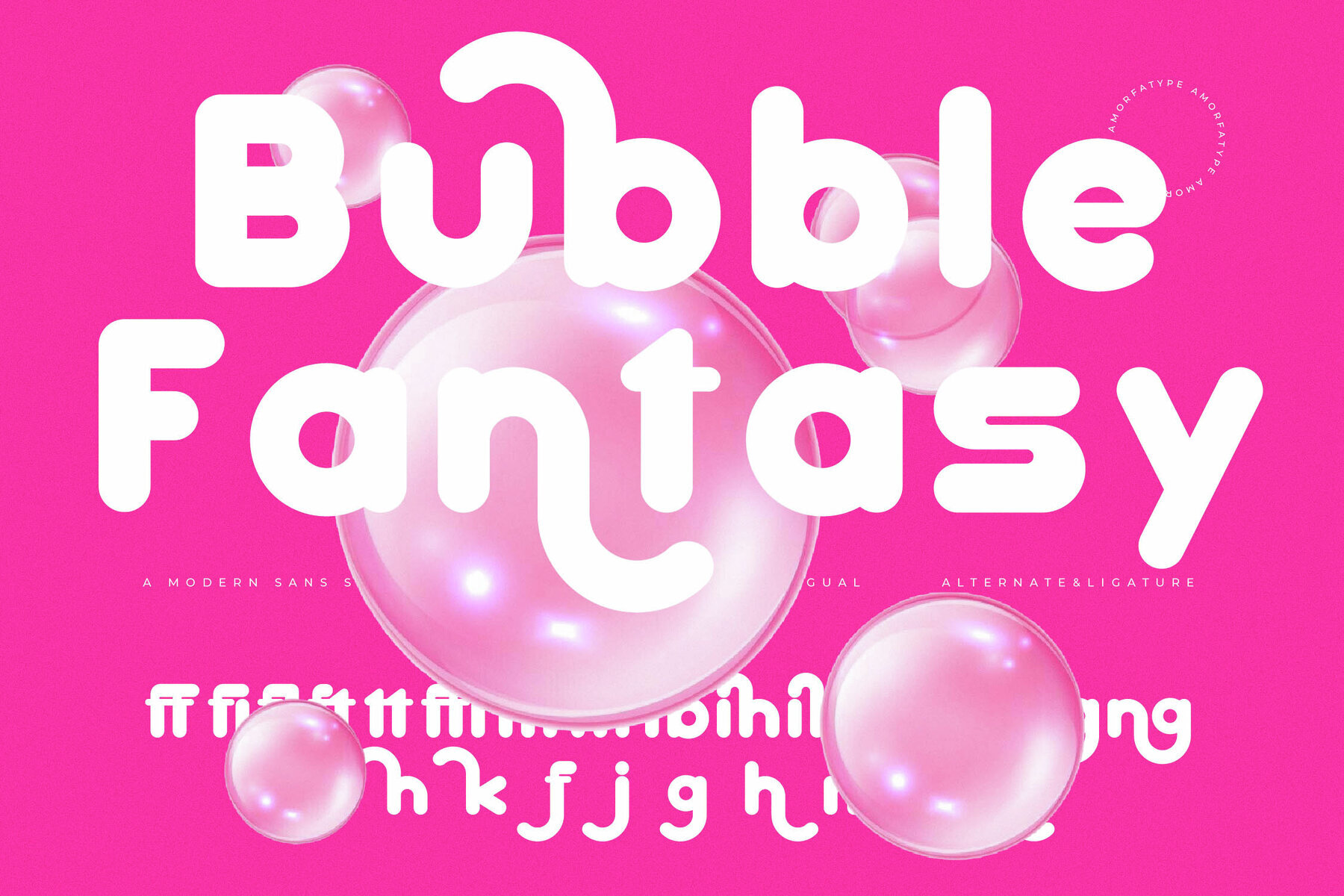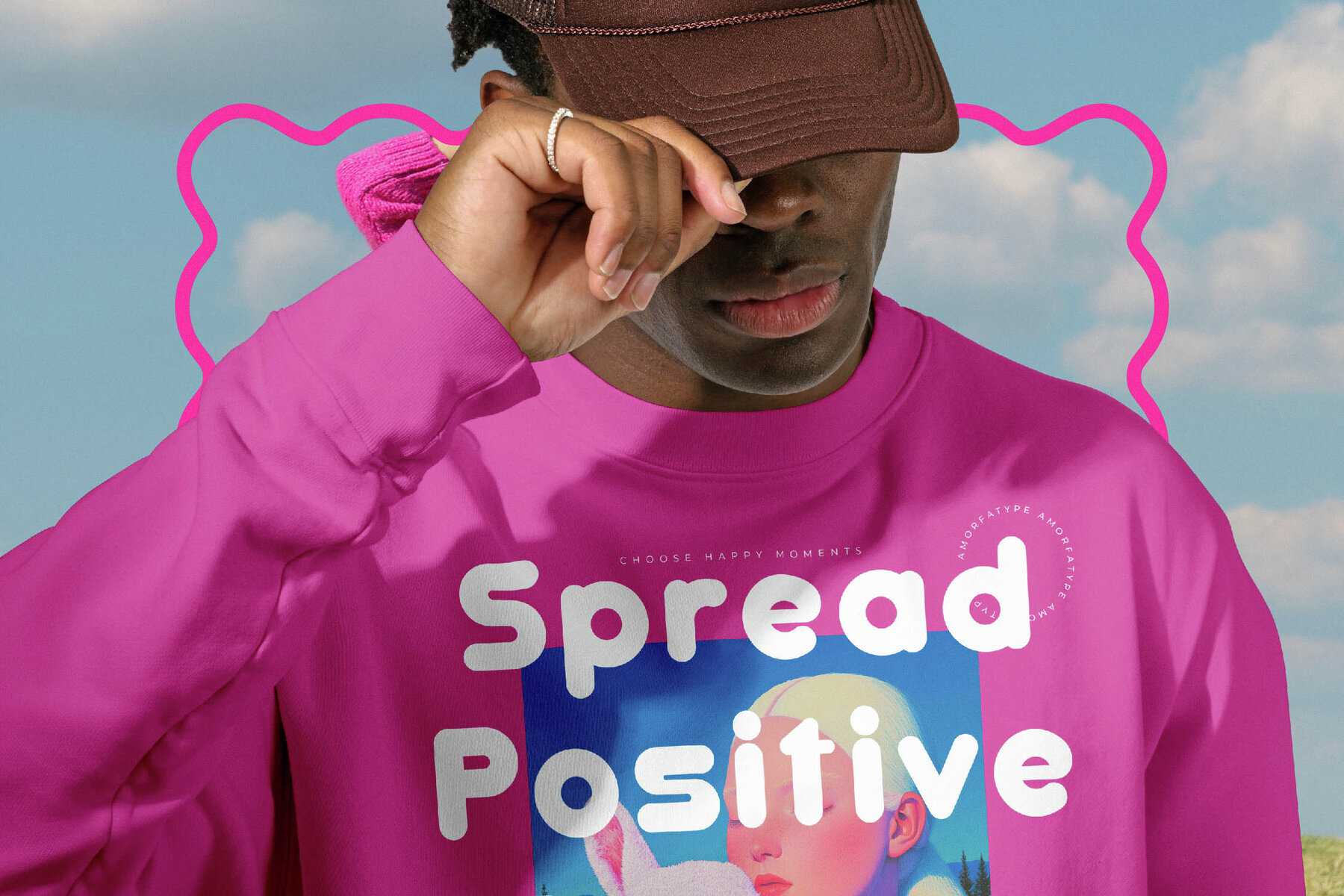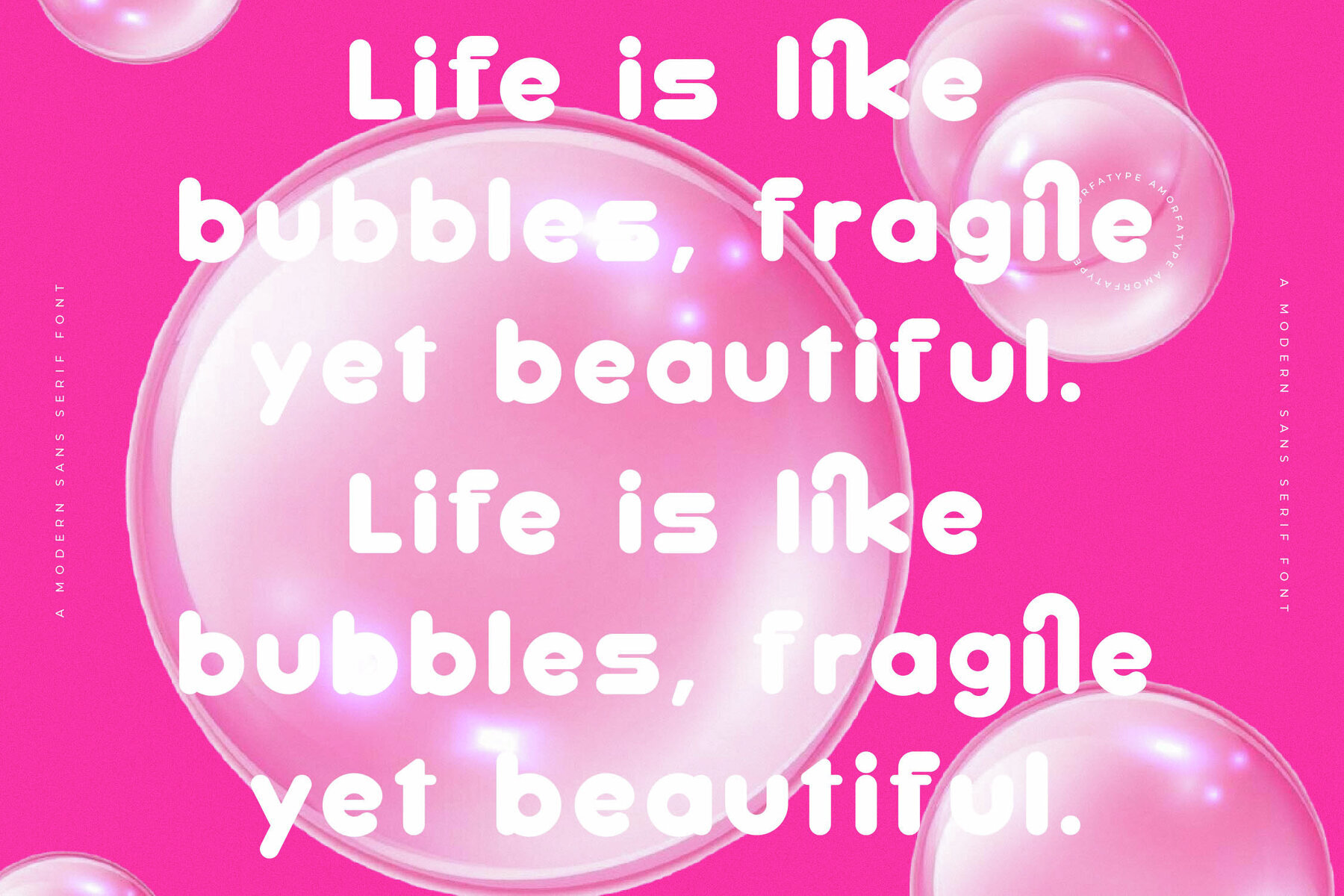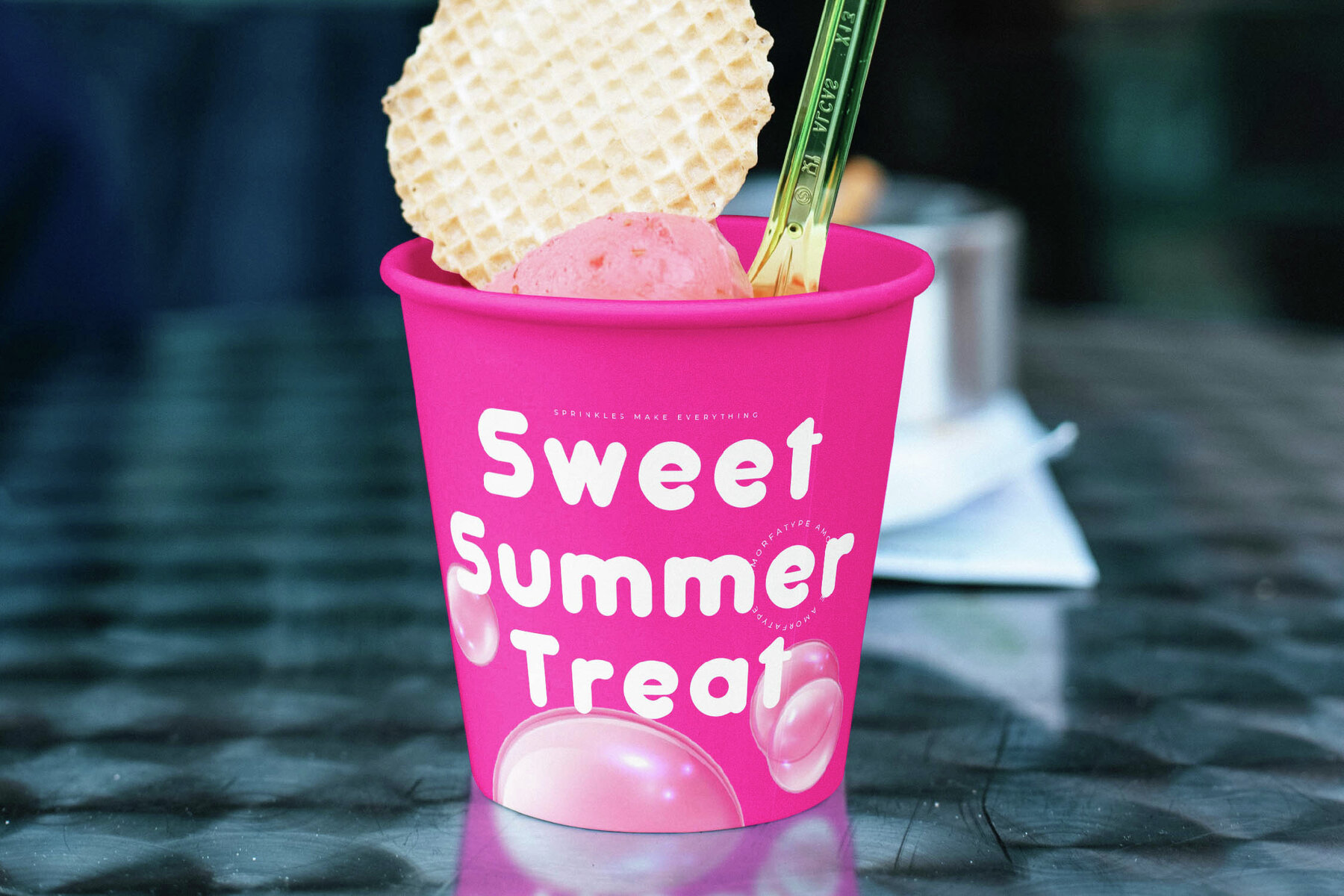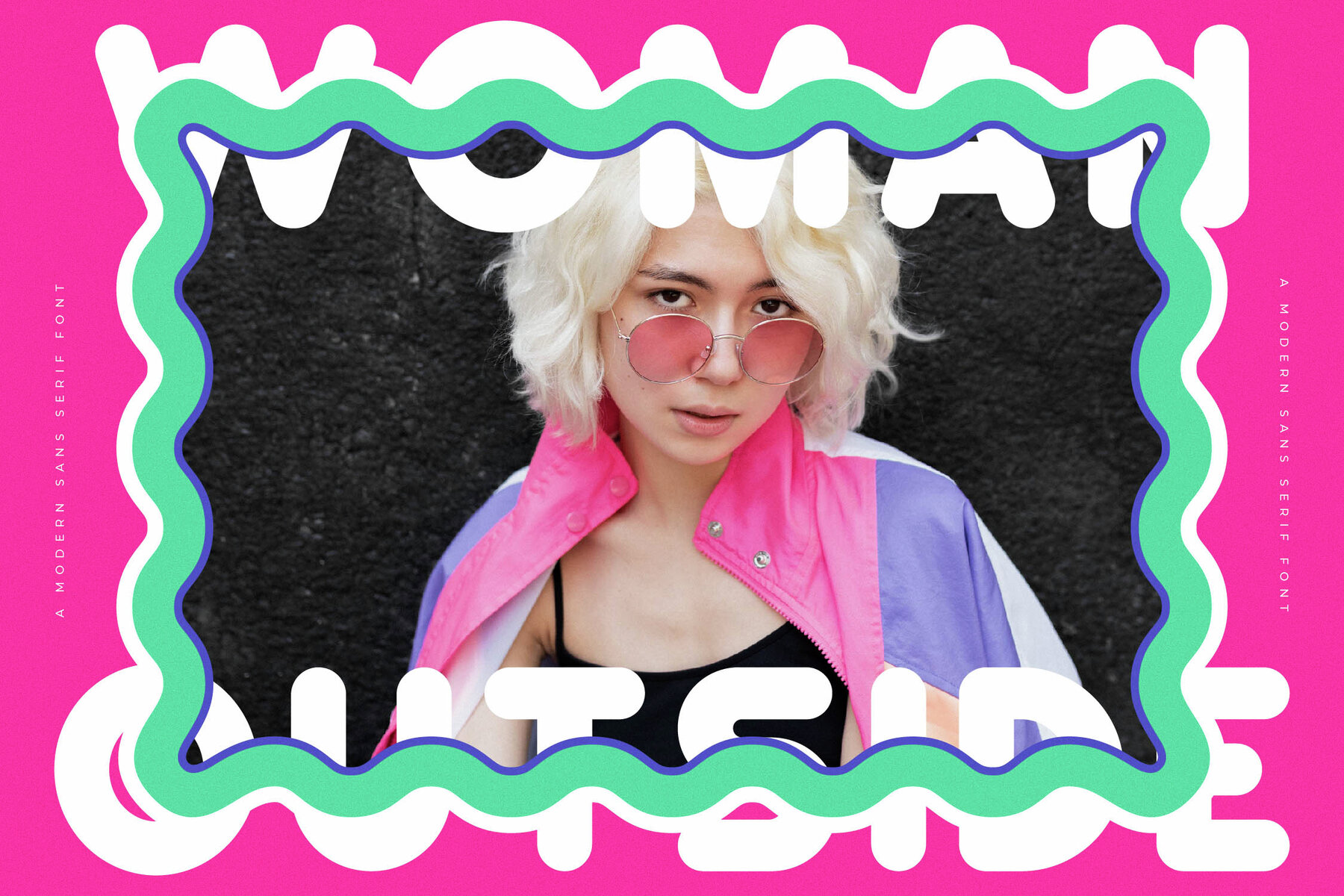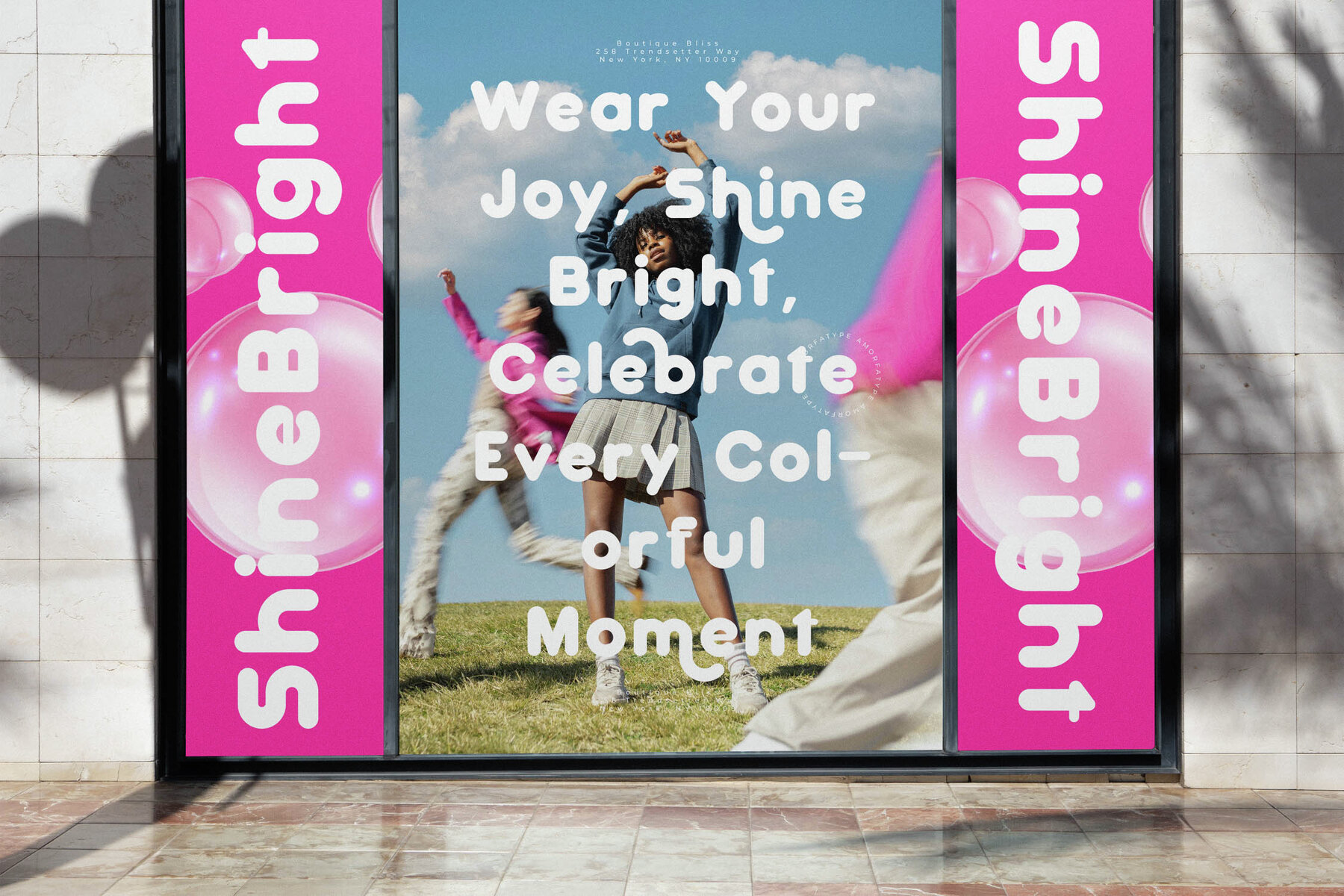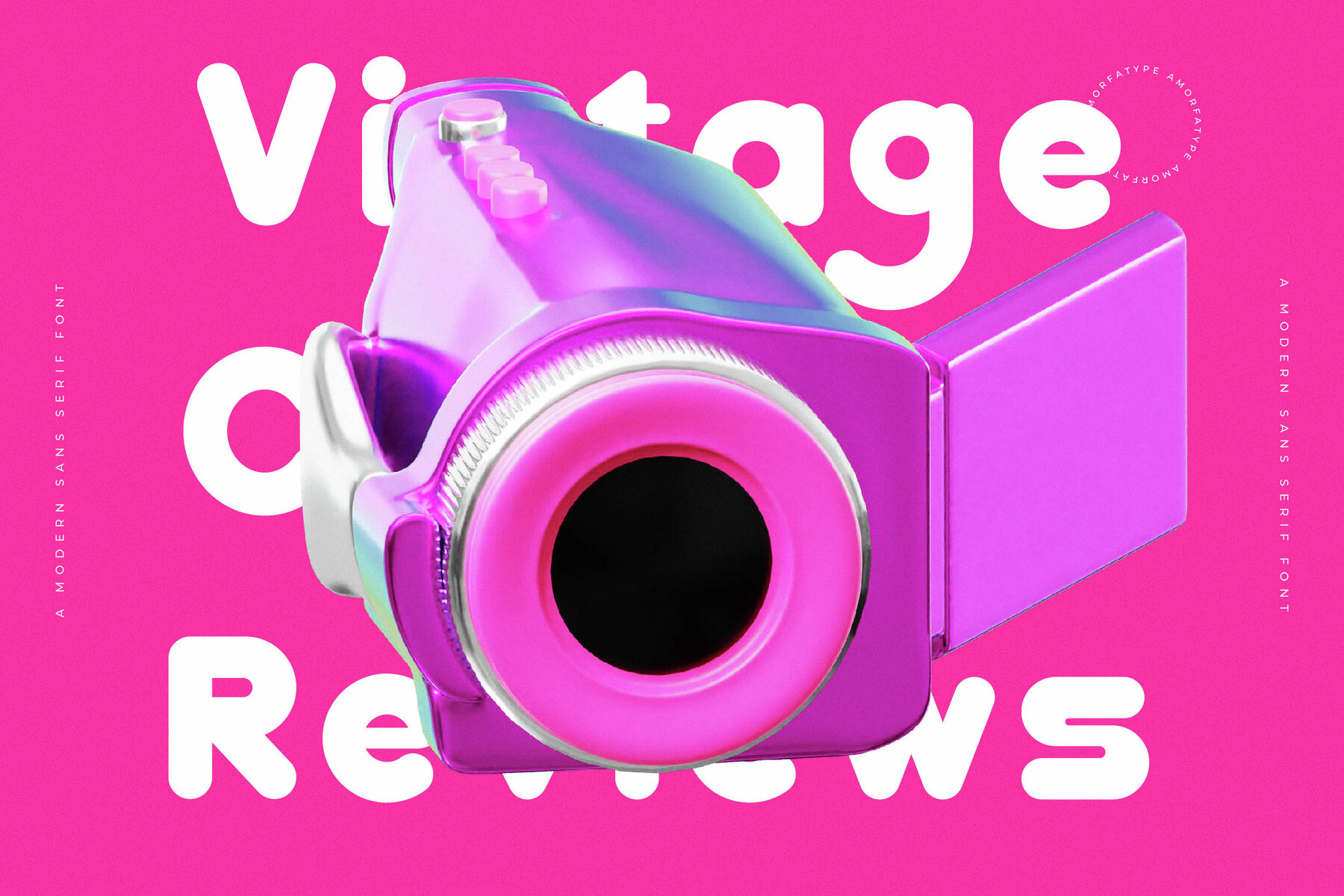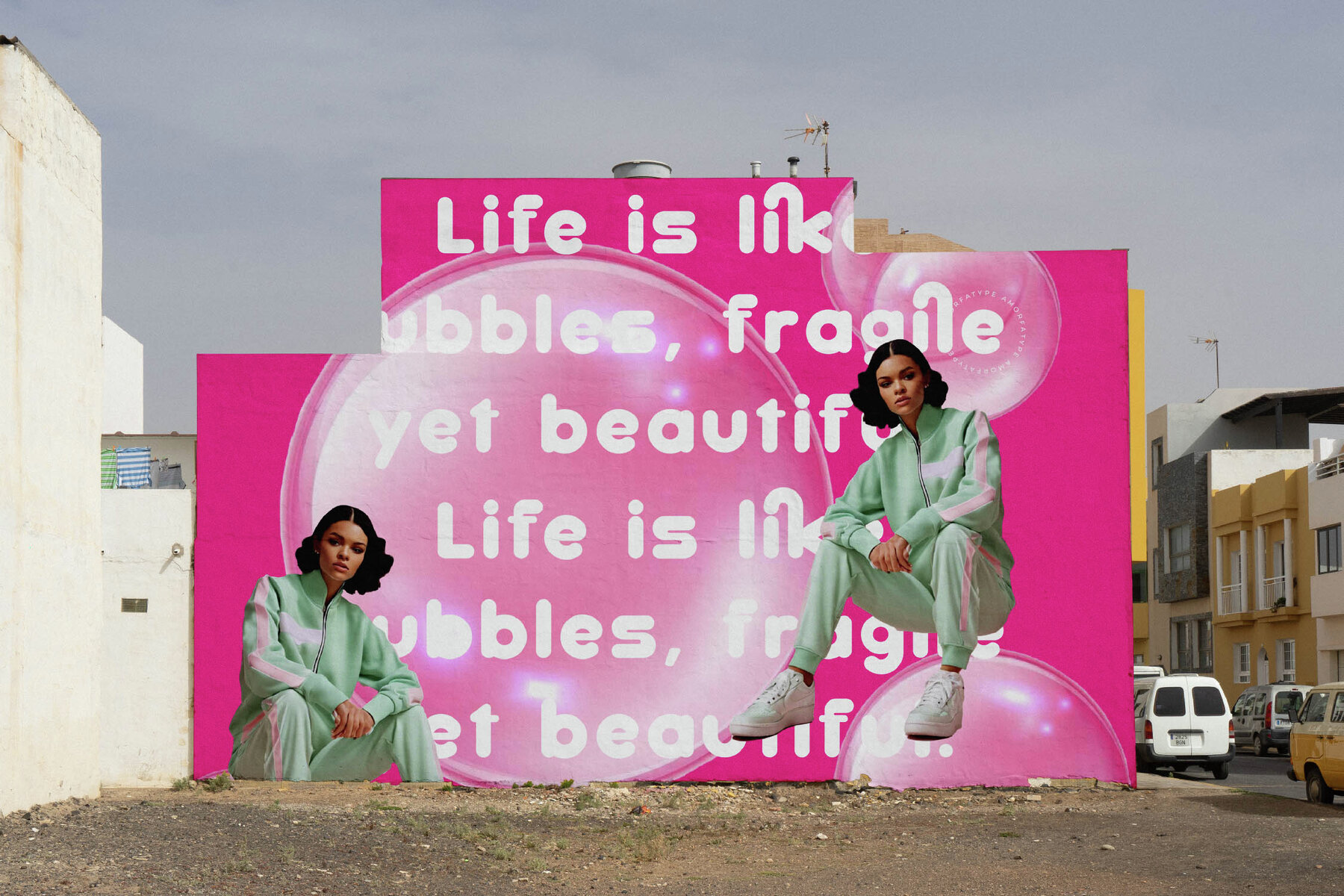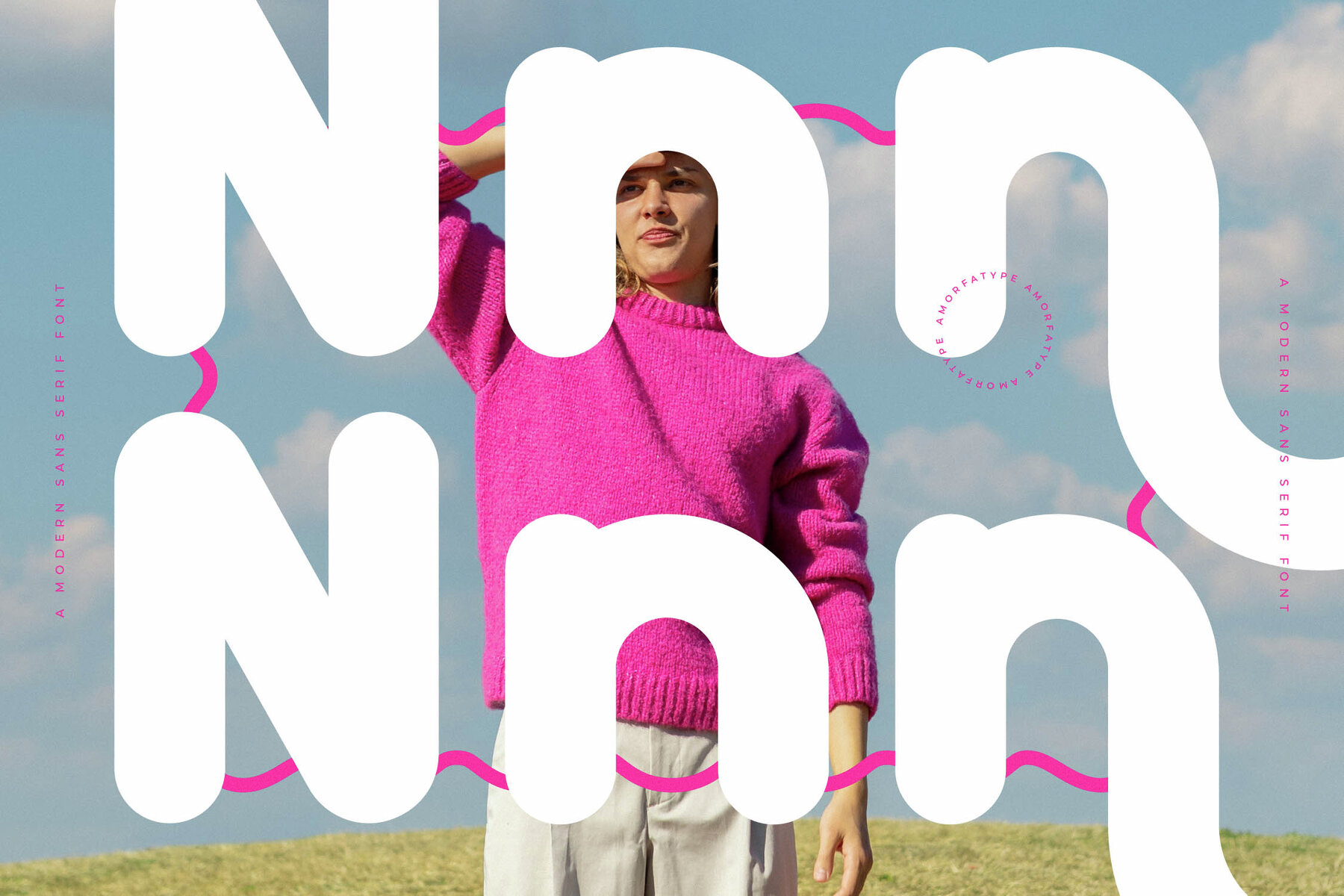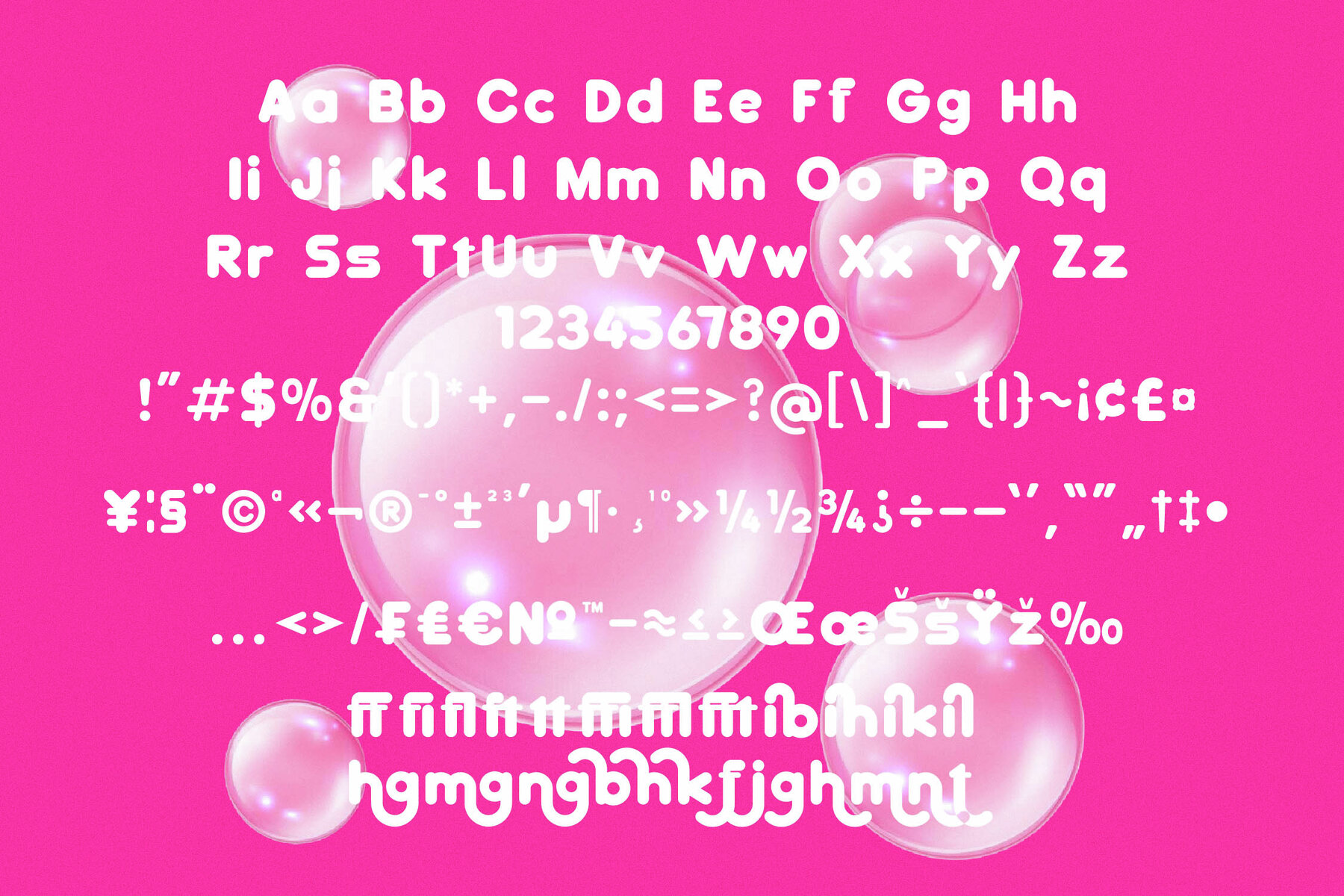
Bubble Fantasy Font
Bubble Fantasy is a delightful rounded sans serif font designed to bring whimsy and fun to your projects. Featuring soft curves and a friendly appearance, this font exudes approachability and joy, making it an excellent choice for various creative endeavors. Each character is thoughtfully crafted to maintain legibility while delivering a playful charm, making it perfect for children's books, vibrant branding, or playful editorial designs.
The font package includes ligatures, alternates, and swashes, providing versatile options to enhance your designs. Bubble Fantasy is compatible with both PC and Mac, ensuring easy installation and accessibility across Adobe Illustrator, Photoshop, InDesign, and Microsoft Word. This font introduces a sense of lightheartedness to any composition, adding joy and creativity to your projects.